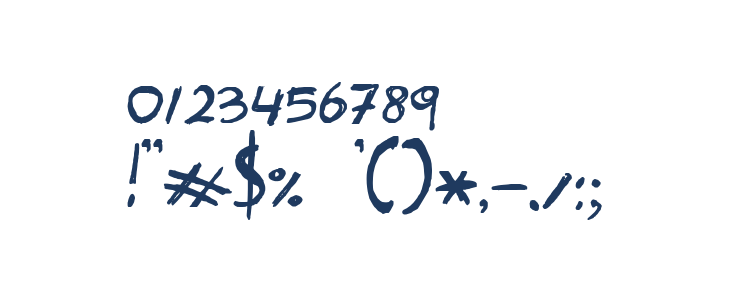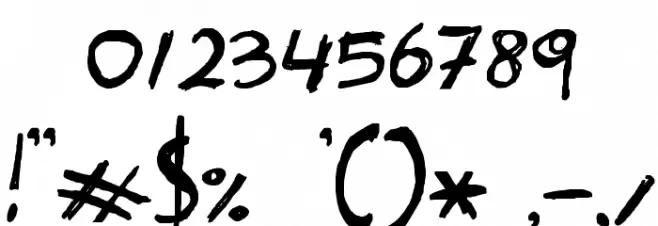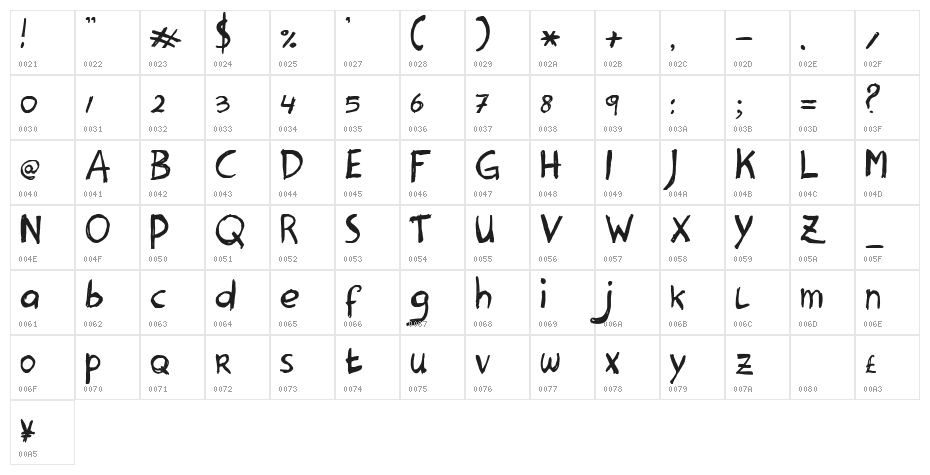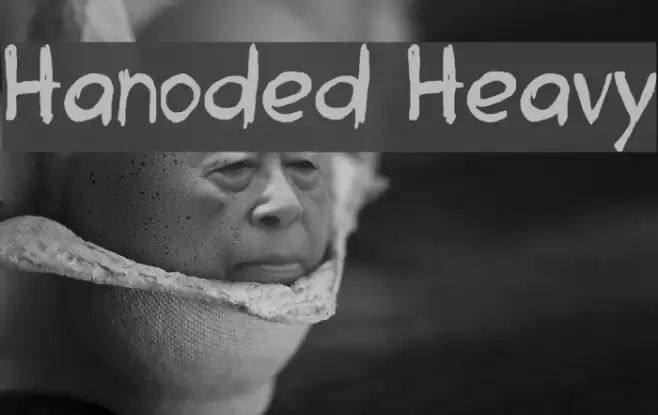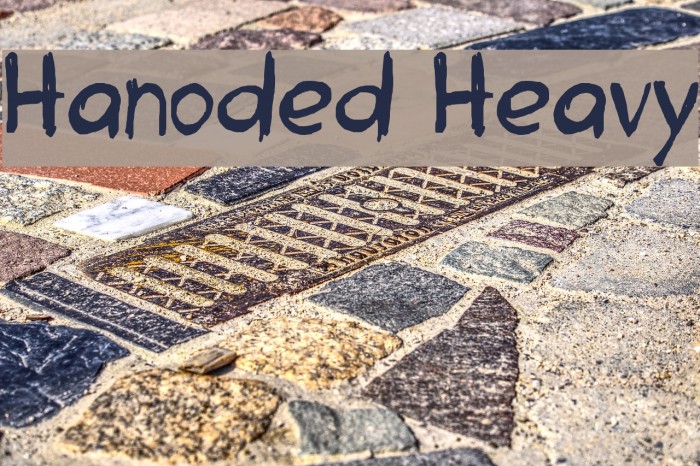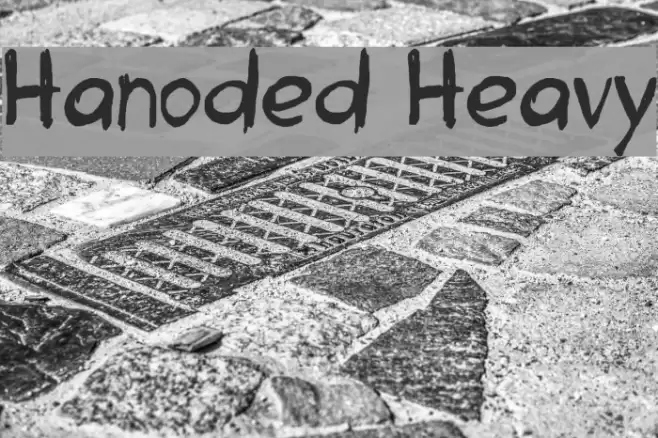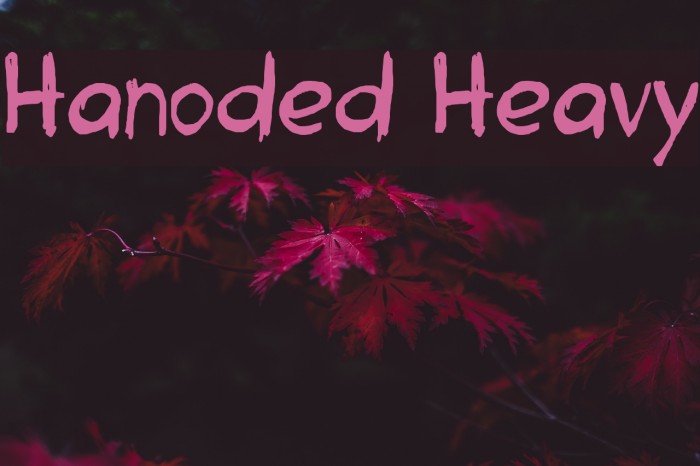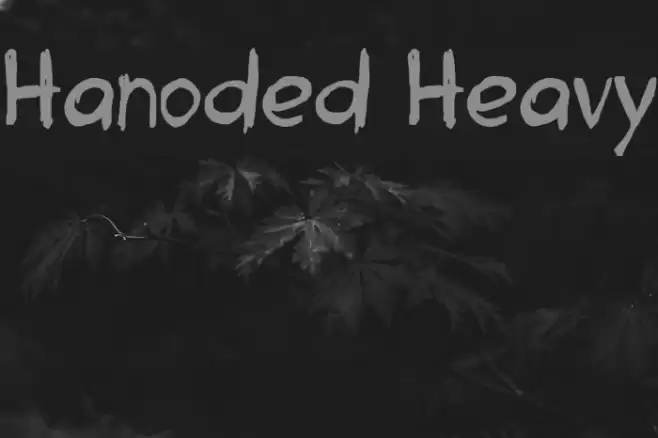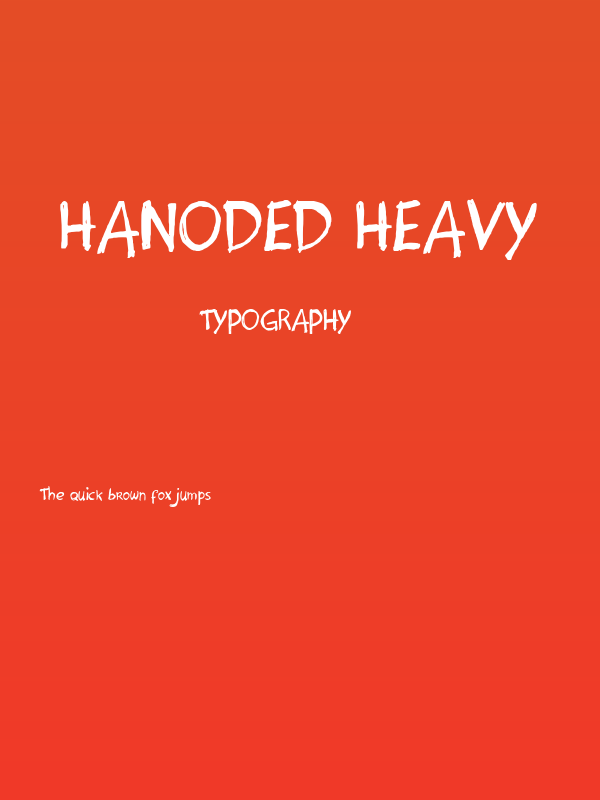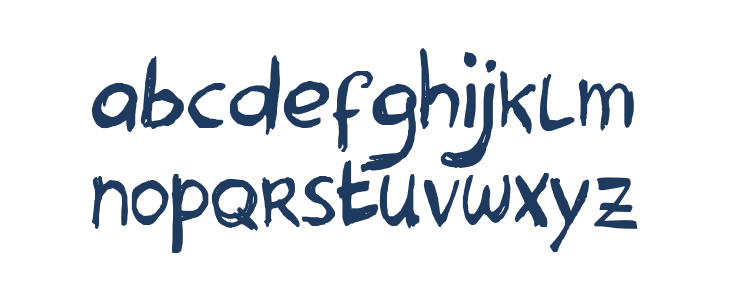
Hanoded Heavy Font
Hanoded Heavy Description
This font exhibits a bold and expressive handwritten style, characterized by its irregular and dynamic strokes. The letters have a playful and artistic appearance, with varying thicknesses that give it a lively and energetic feel. The uppercase and lowercase letters maintain a consistent style, with a slightly rough texture that adds to its handcrafted look. The numerals and special characters follow the same aesthetic, ensuring a cohesive design throughout. This font's unique personality makes it stand out, perfect for projects that require a touch of creativity and individuality.
| Use Case | Headlines, Logos, Artistic designs |
| Proposed Projects | Ideal for creative projects such as posters, invitations, branding, and artistic designs where a personal touch is desired. |